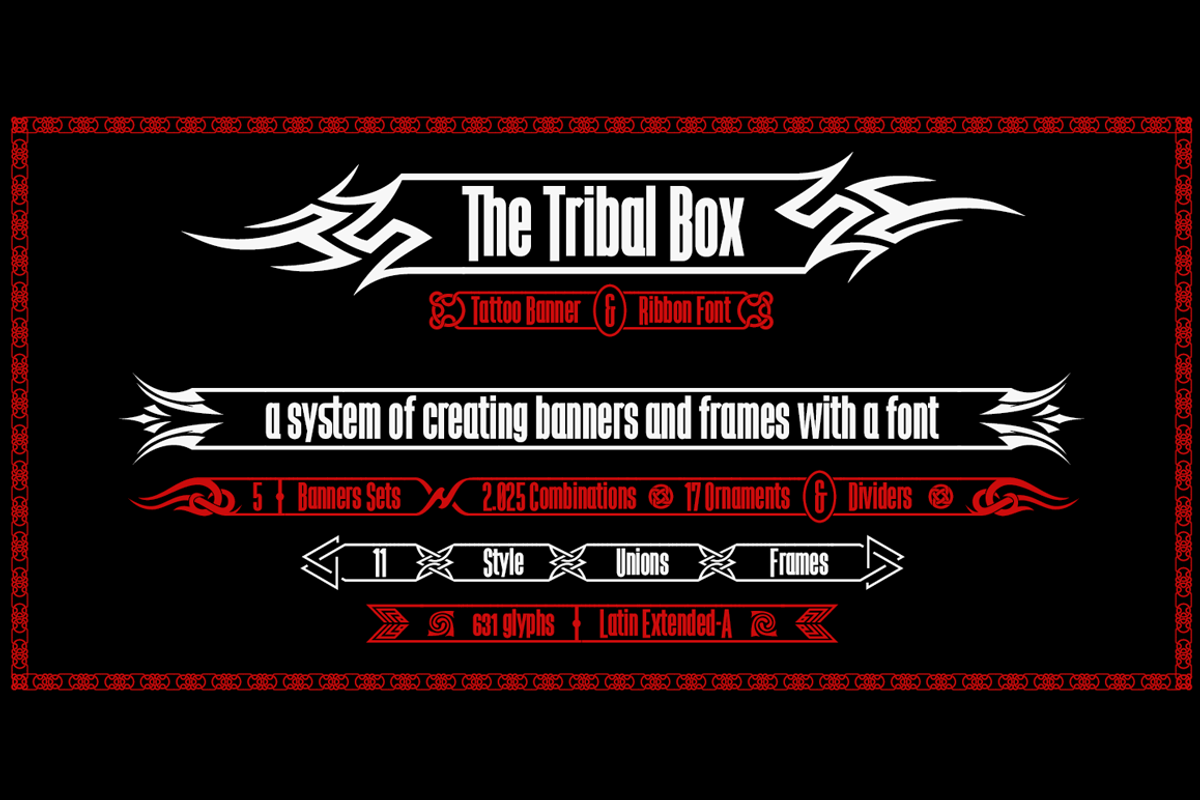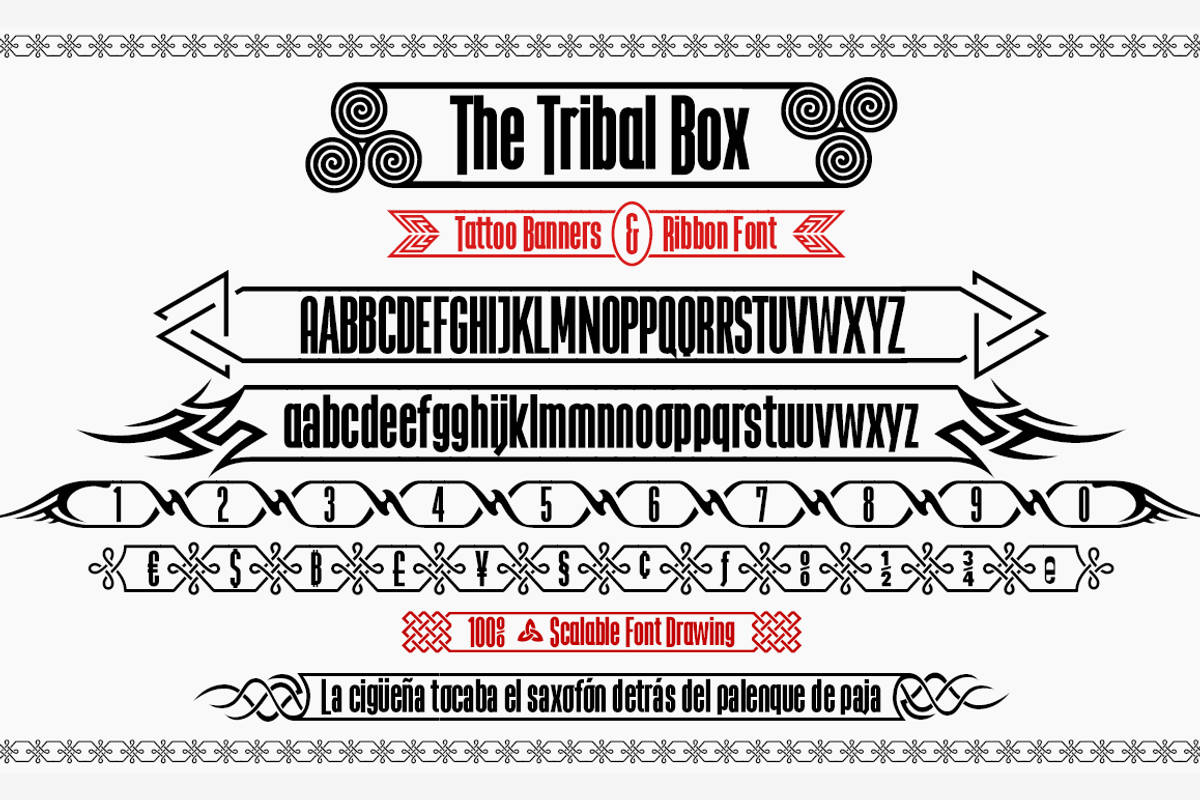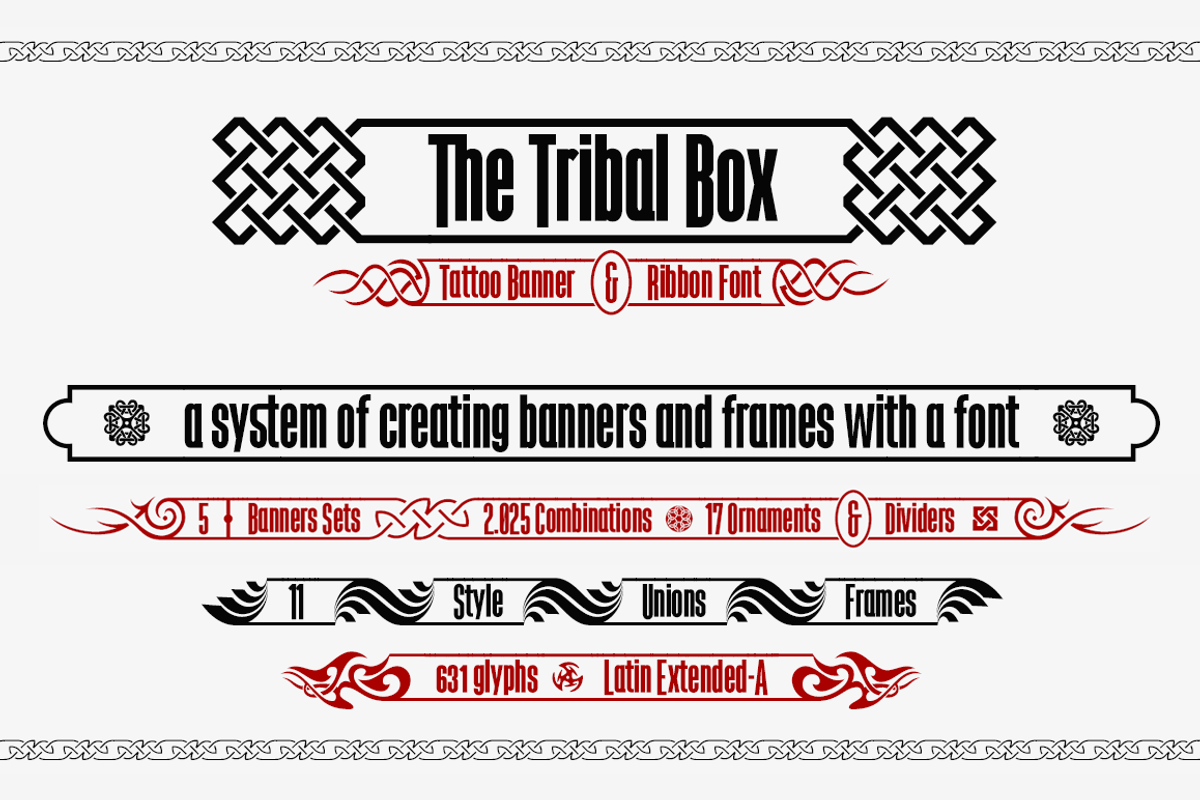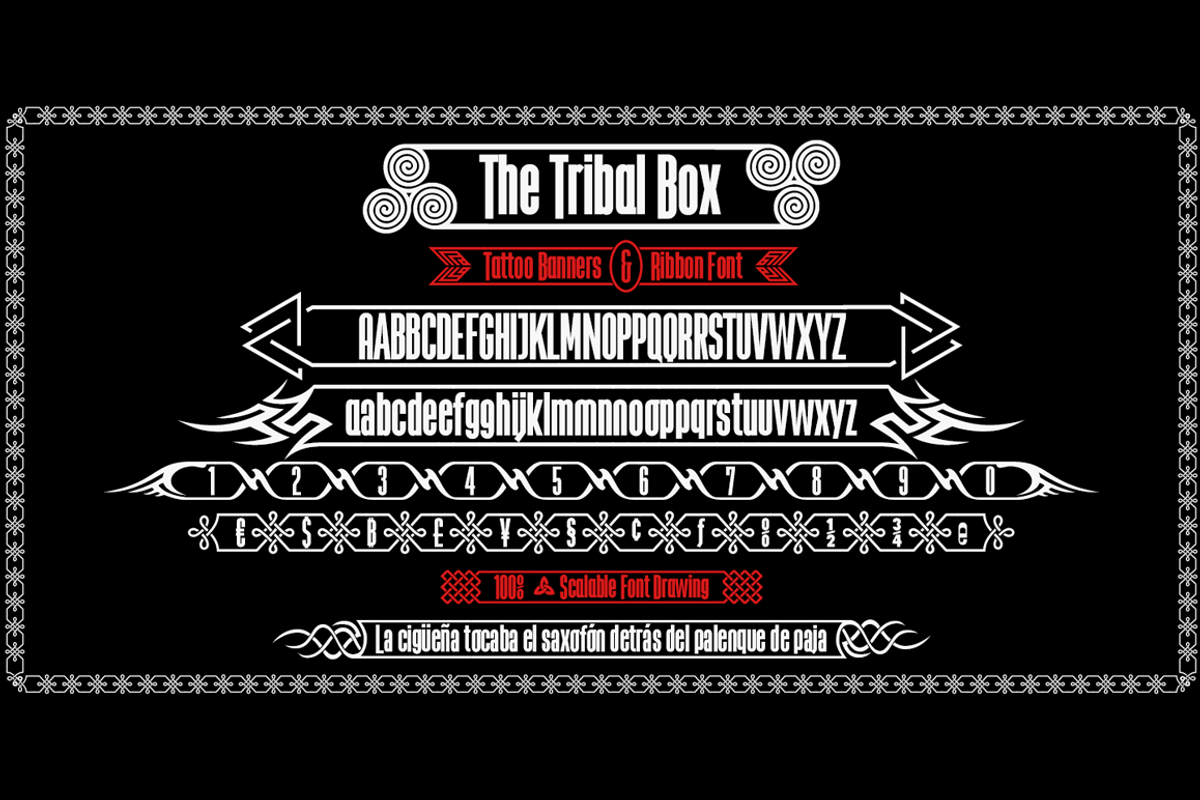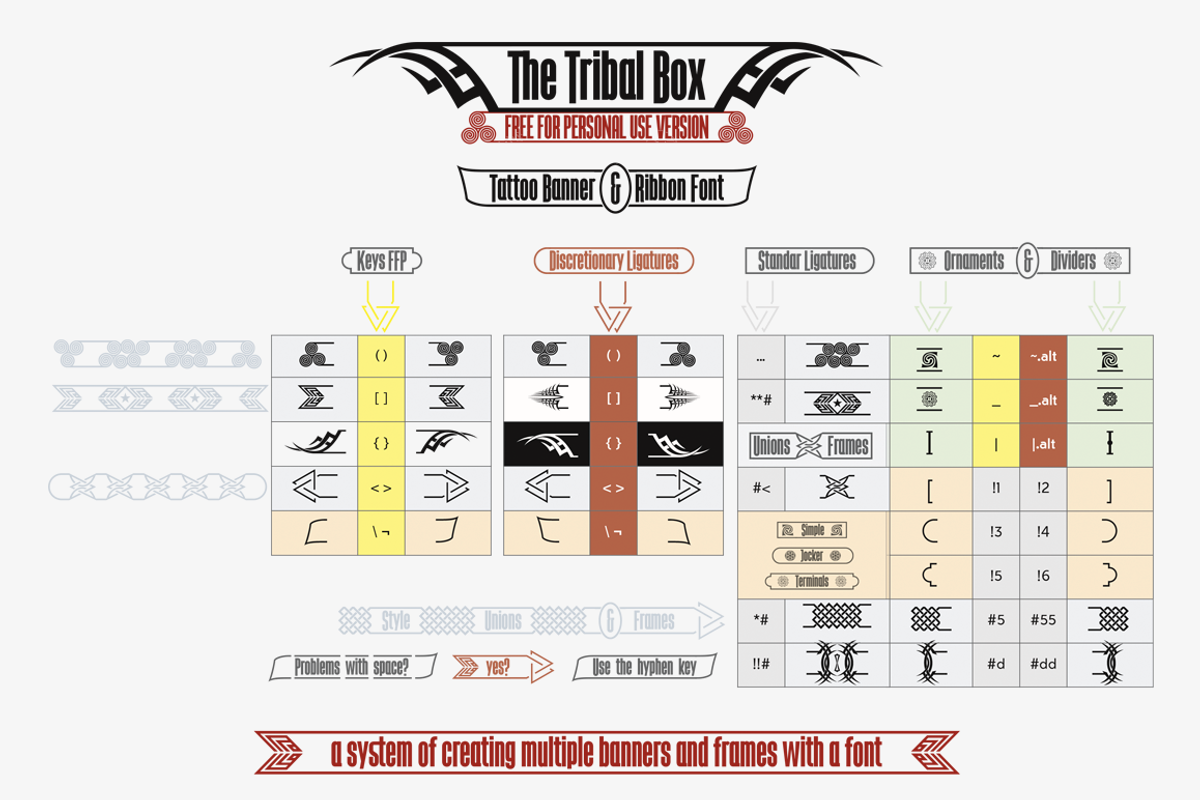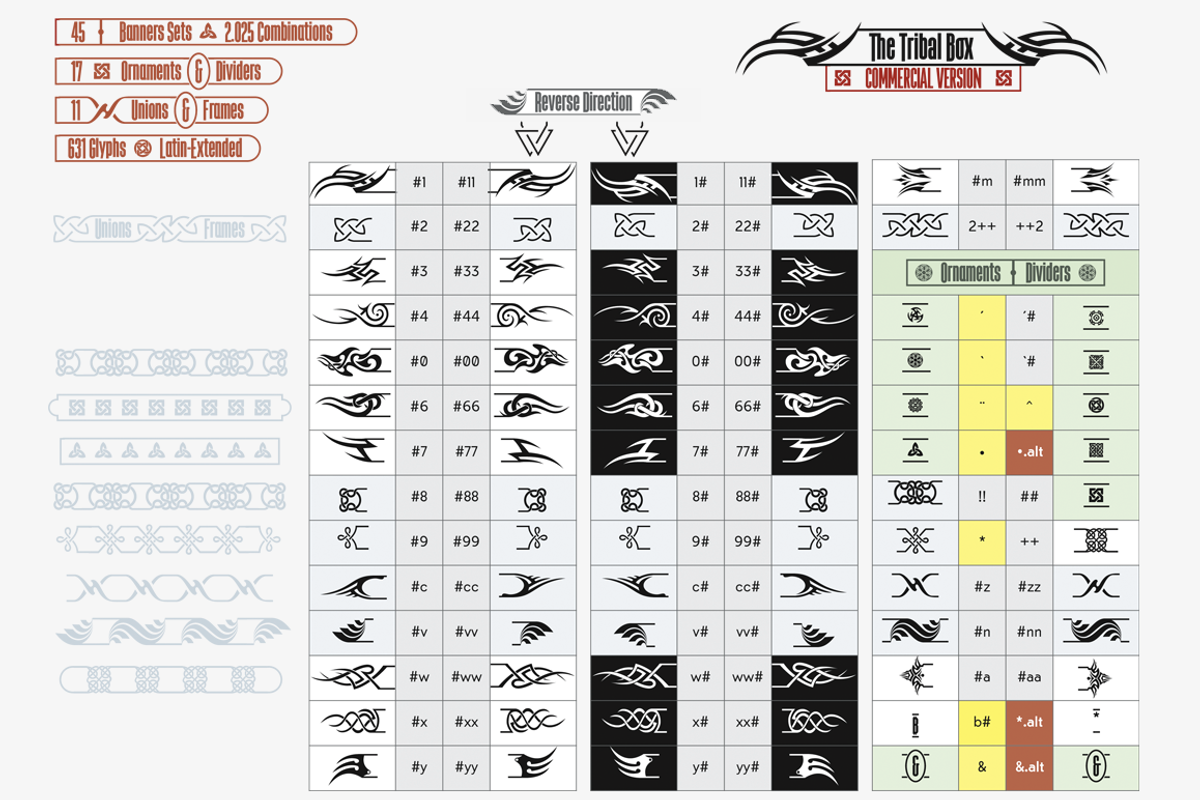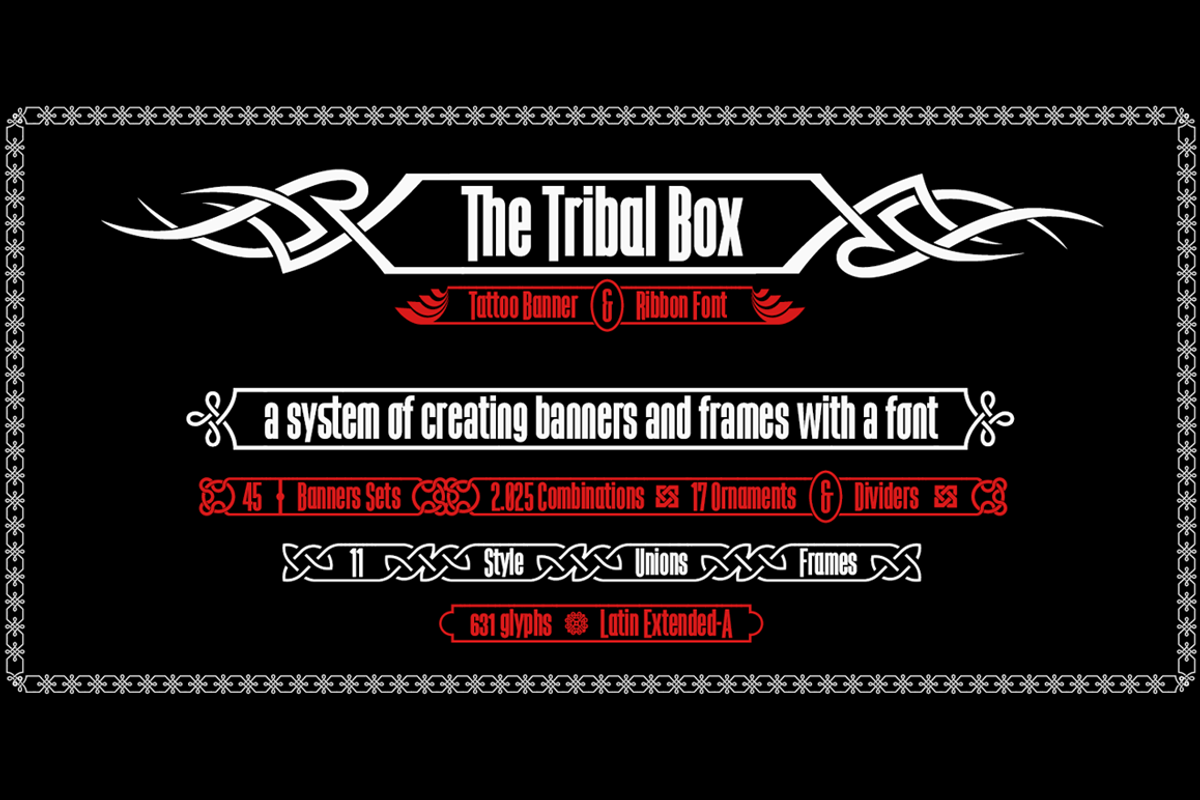
The Tribal Box -banner font-
The Tribal Box -banner font- by deFharo is a font selected for branding, posters, packaging, typography.
- The Tribal Box is a sans-serif condensed font surrounded by a frame that includes OpenType ligatures system for creating multiple banners an
The Tribal Box -banner font- by deFharo fits naturally into Branding, posters, packaging, typography.